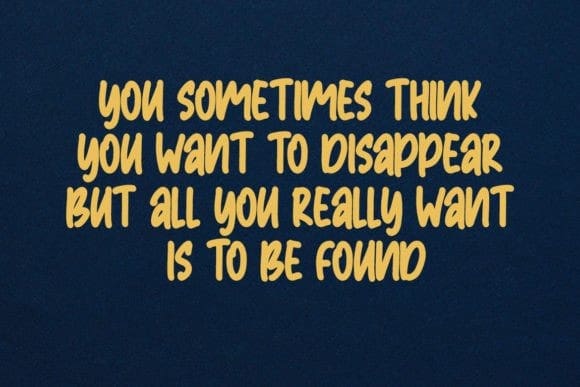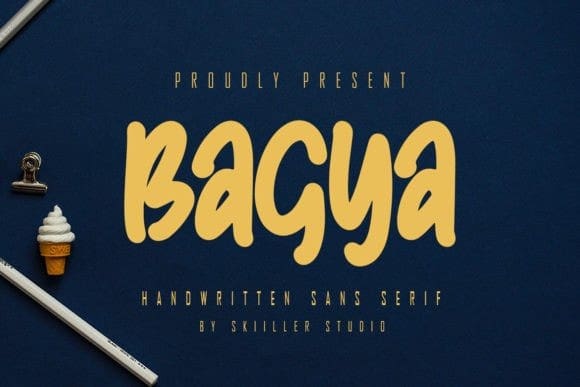
Bagya Cute Font
Bagya Cute Font is a modern and cool handwritten display font. It looks beautiful on a variety of designs requiring a personalized style, such as wedding invitations, thank you cards, weddings, greeting cards, logos, and so on.